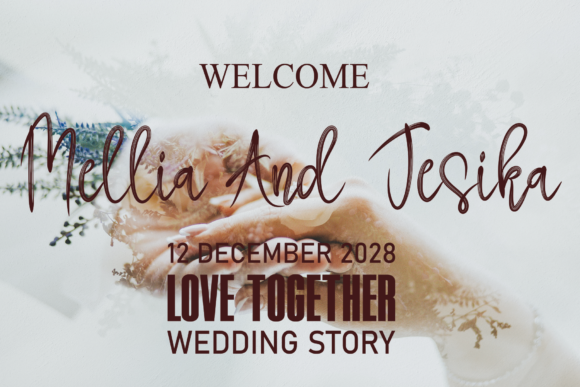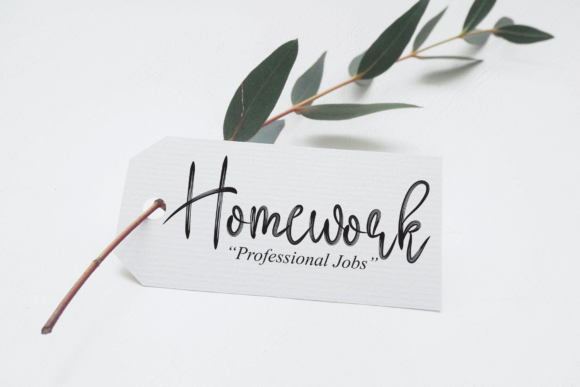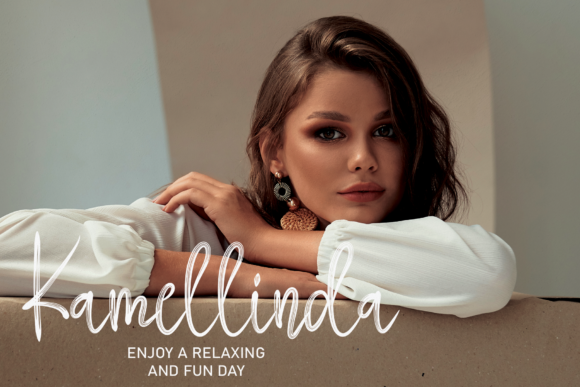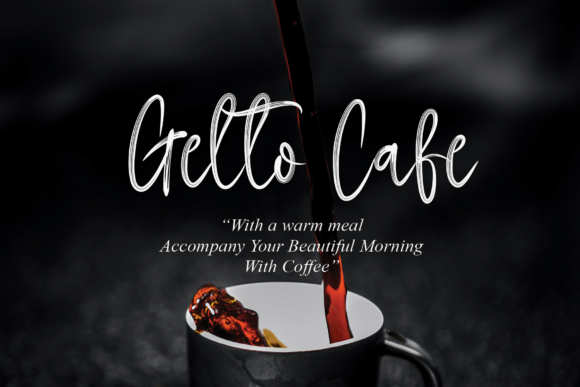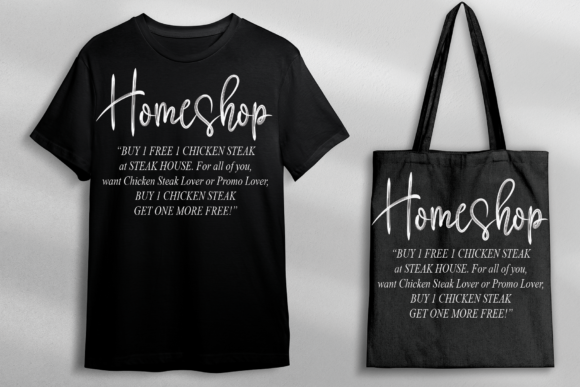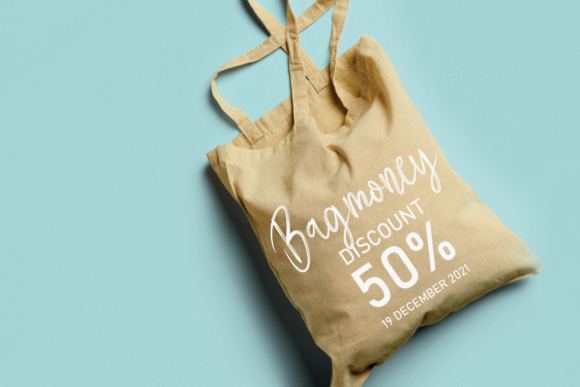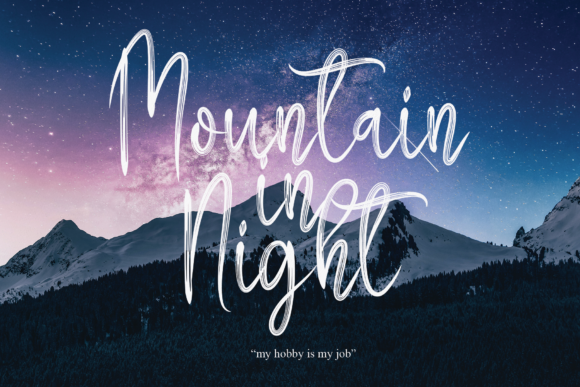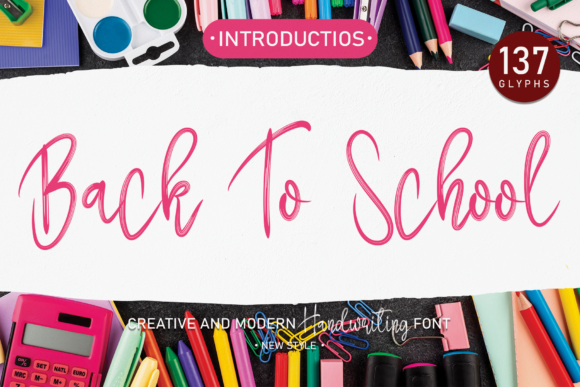
Back to School Font
About Back to School Font
Back to School is a brushed and delicate script font that exudes elegance and class. This font was particularly crafted for those who need a beautiful and refreshing look to their designs.